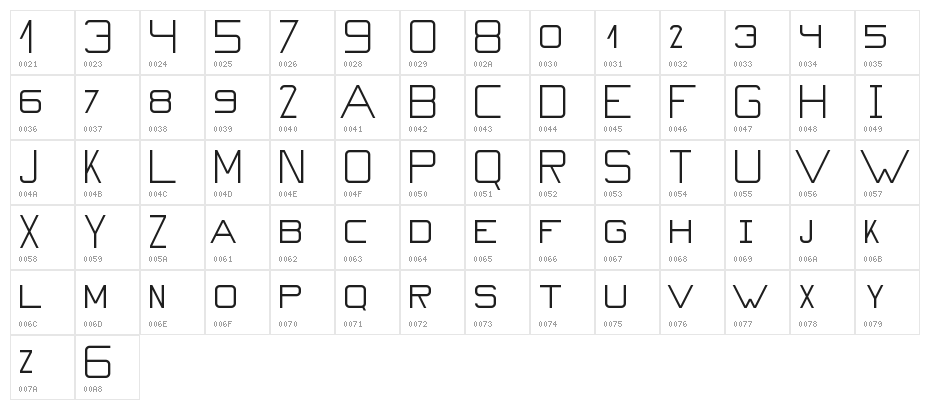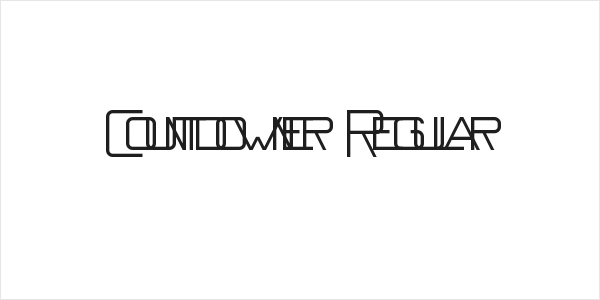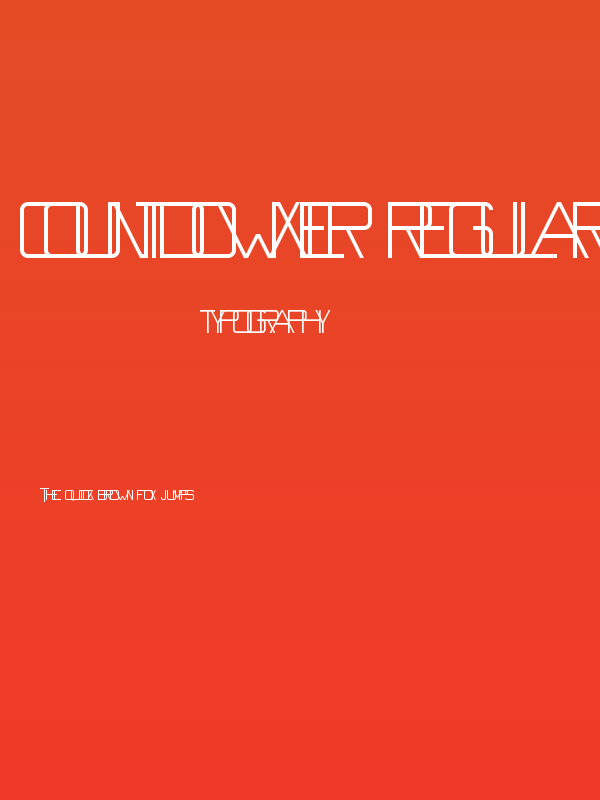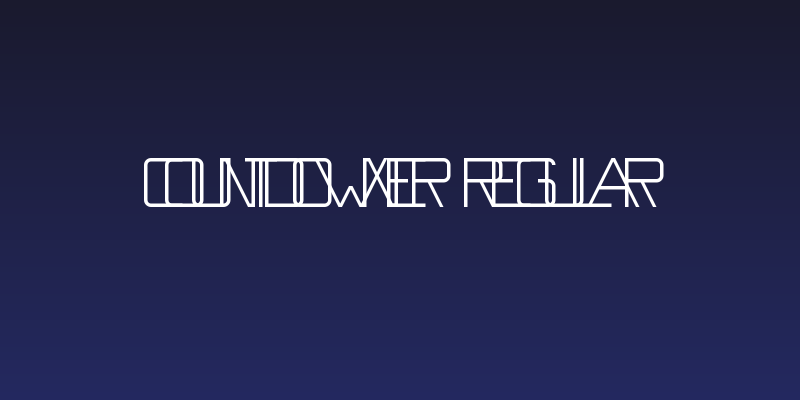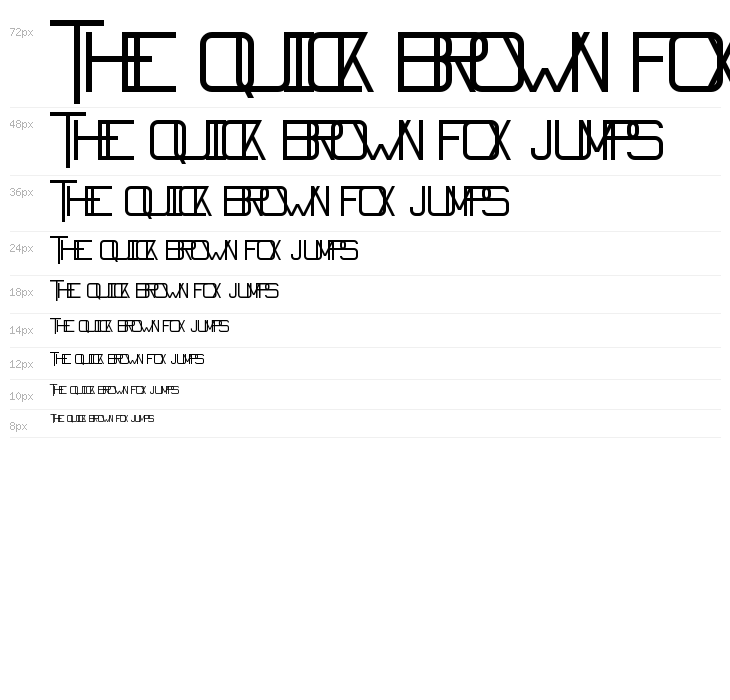
Countdowner Regular Font
Countdowner Regular Description
This font features a unique and modern design with overlapping lines that create a sense of movement and complexity. The characters are constructed with a geometric approach, where each letter and number is formed by intersecting lines, giving it a futuristic and digital appearance. The uppercase and lowercase letters maintain a consistent style, with the same structural elements applied across the board. The numbers follow the same design principles, ensuring uniformity throughout the font. The overall look is sleek and contemporary, making it suitable for projects that require a distinctive and eye-catching typeface.
| Proposed Projects | Ideal for digital interfaces, tech branding, futuristic posters, and modern art projects. |